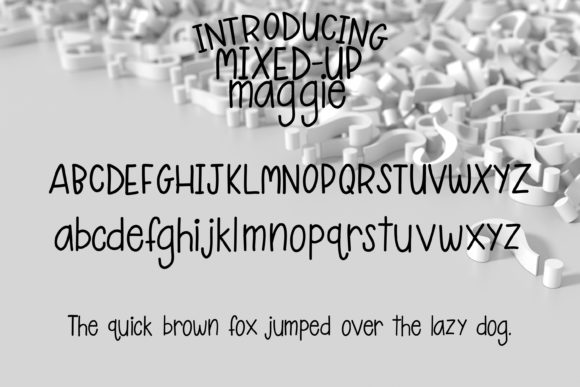
Introduction to Mixed-Up Maggie Font
Mixed-Up Maggie is a fun font featuring mixed-up heights and weights to create a unique look to your project.
Get inspired by its unique look & feel .
Key Features of Mixed-Up Maggie Font
Why Choose Mixed-Up Maggie Font?